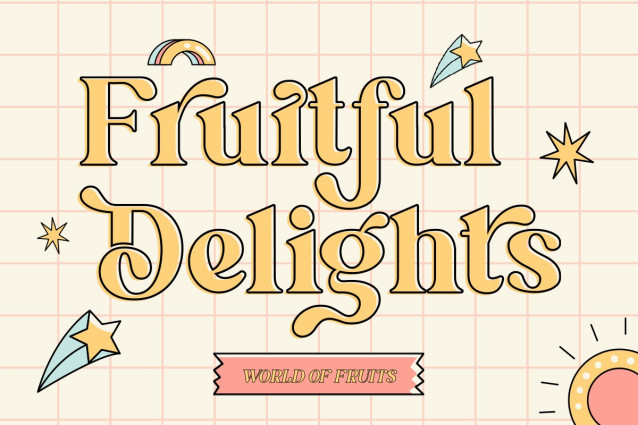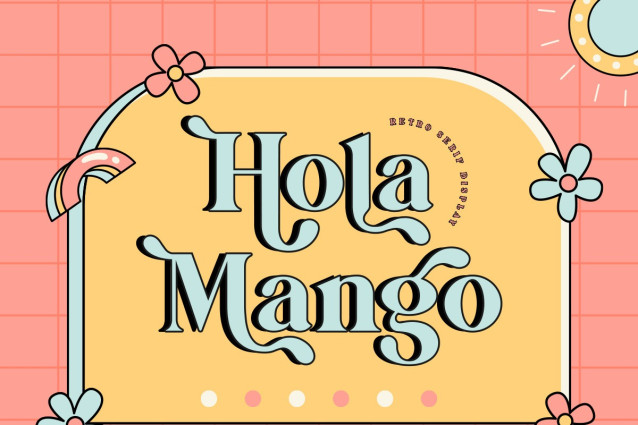
Hola Mango Font
Hola Mango Font is a very versatile font, which is available in 4 styles: regular, italic, outline, italic outlinecovering a wide range project types, from bold magazine imagery , to wedding invitations, to branding, poster design and so much more.